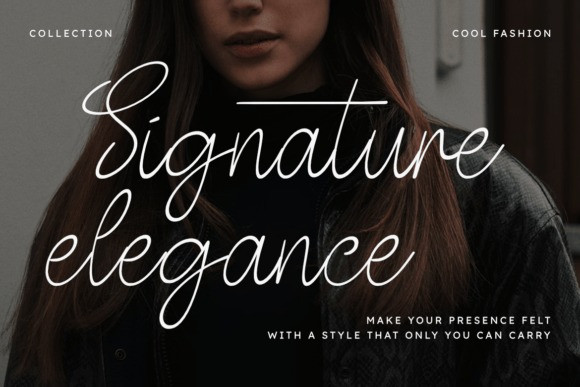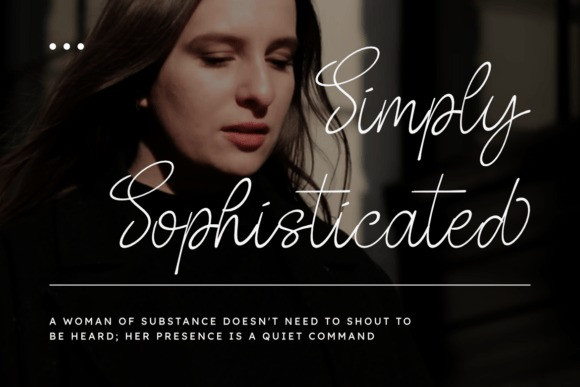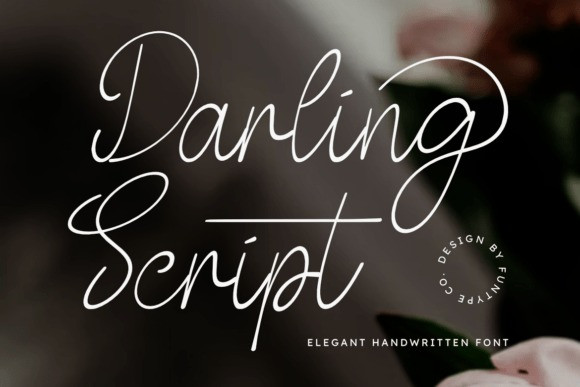
Darling Handwritten Type is a beautiful and fluid handwritten font, designed to bring a touch of romance and elegance to your creative projects. With its natural flow and delicate strokes, this font captures the essence of authentic calligraphy with a modern, chic twist. It is the perfect choice for designers who want to convey a sense of personal charm and sophistication.
Equipped with full Multilingual Support, Darling Script is a versatile assets for global designers. Its airy and graceful letterforms make it an ideal selection for everything from intimate wedding invitations to luxury brand identities. Whether you’re working on digital content or print materials, Darling Script adds a high-end, handcrafted aesthetic effortlessly.